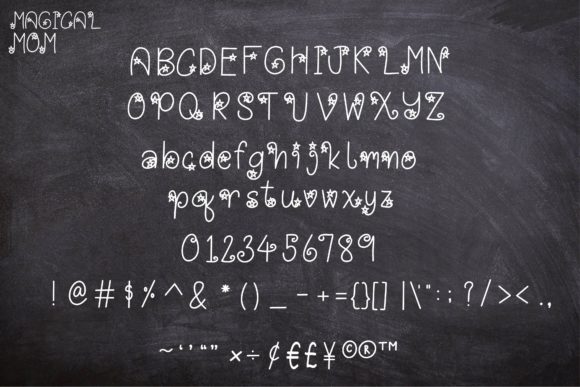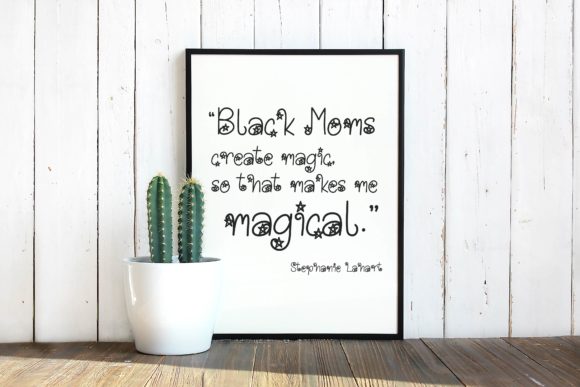
Introduction to Magical Mom Font
Have you ever been working on a creative project, pouring your heart and soul into it, only to feel like something’s missing? That’s when the perfect font can make all the difference. For me, it’s the moment when the words start to flow, and the design begins to take shape. And that’s exactly what the Magical Mom Font does – it adds a touch of magic to your crafting projects.
As a designer, you know how important it is to have access to high-quality design resources that can elevate your work. The Magical Mom Font is one such treasure, featuring star-themed characters that will make your projects stand out. With its transparent background and free download option, it’s the perfect addition to any creative endeavor.
Key Features of Magical Mom Font
- High-quality design resource ideal for creative projects, offering a unique touch to any artwork or design.
- Magical Mom Font comes with a transparent background, allowing for seamless integration into various design elements.
- Font size: 256 glyphs, covering a wide range of characters and symbols for creative expression.
- Unique, hand-drawn style with a whimsical touch, perfect for adding a touch of magic to any creative project.
Honest Review: Magical Mom Font
I recently stumbled upon the Magical Mom Font, and I must say, it’s a delightful addition to any design project. This font is perfect for creatives looking to add a touch of whimsy to their work. ✨
- High-quality design: The Magical Mom Font is well-crafted and looks great at various sizes.
- Transparent background: The font’s transparent background makes it easy to use over different images and backgrounds.
However, I did notice a few limitations with this font. ⚠️
- Limited character set: The Magical Mom Font has a relatively small character set, which may limit its use for longer texts.
- No bold or italic options: While the font itself is cute, it would be great to have bold or italic versions to add some variety.
Overall, I’m impressed with the Magical Mom Font, and I’d definitely recommend it for small-scale design projects or creative projects where a touch of magic is needed. With a little creativity, you can work around its limitations and achieve great results.
The Magical Mom Font is a high-quality, unique design resource ideal for creative projects. Its transparent background makes it easy to incorporate into various designs.
Getting the Most Out of Magical Mom Font
To get the most out of the Magical Mom Font, use it in conjunction with other design elements that complement its unique style. Experiment with different font sizes, colors, and arrangements to create a visually appealing design.
The Magical Mom Font is ideal for:
- Baby-themed designs (e.g., nursery decor, baby shower invitations)
- Children’s party decorations and invitations
- Family-oriented designs (e.g., family tree prints, photo albums)